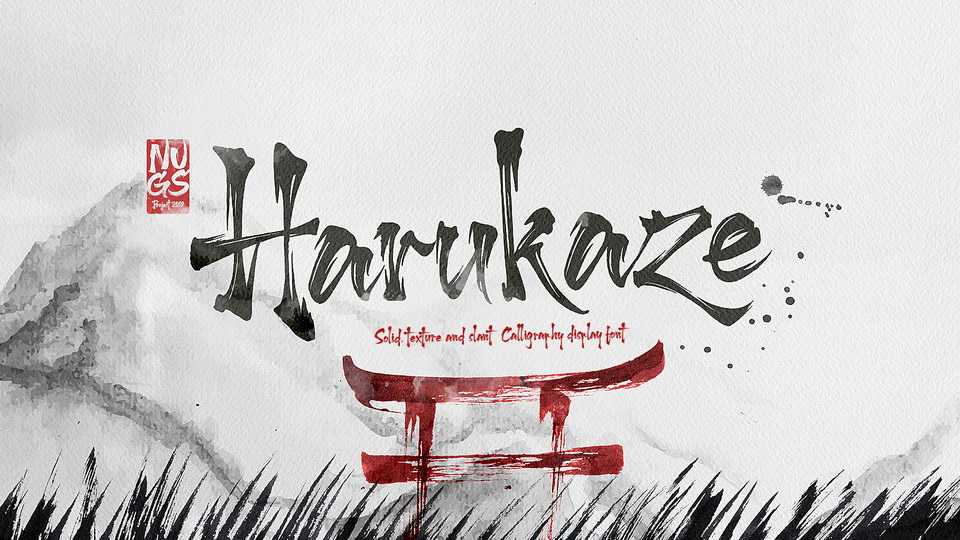
Download Harukaze font, a hand painted brush script with a Japanese calligraphy style. Harukaze font is suitable for use in movie titles, logos, band names and t-shirt designs.